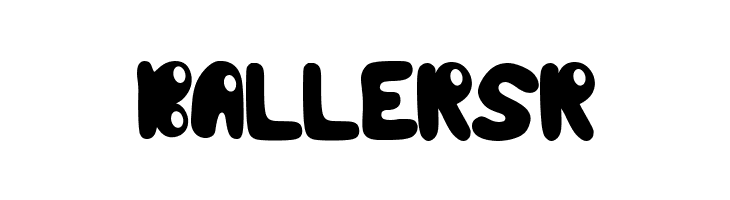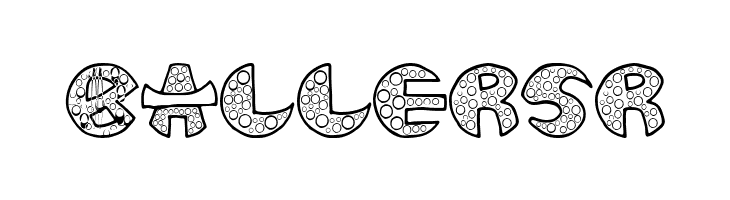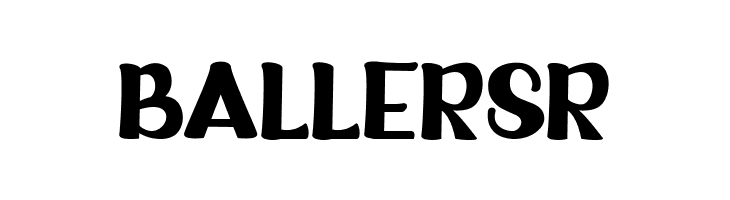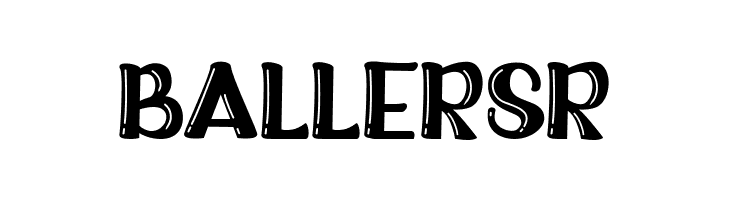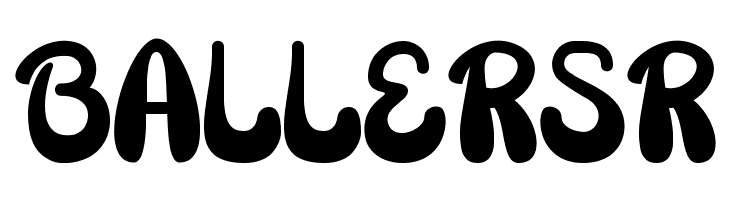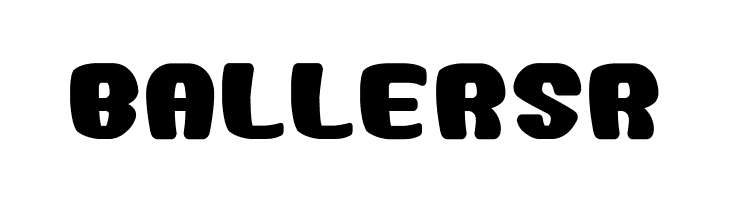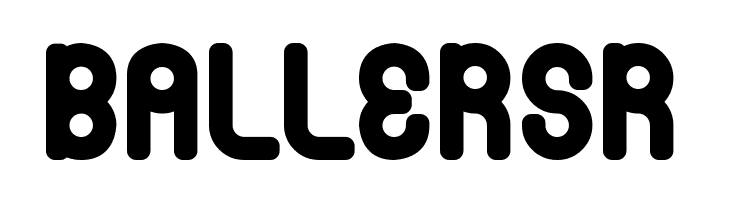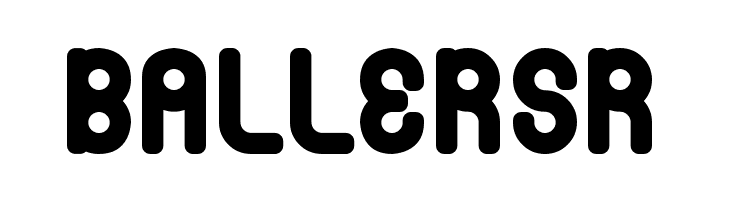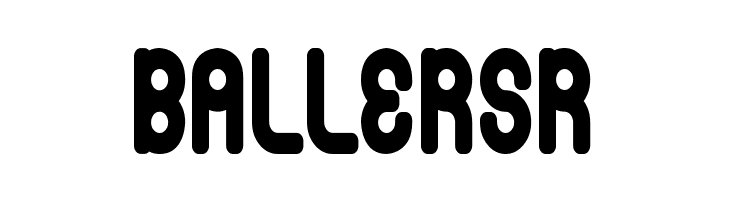
A playful, bubble-like outline font with rounded edges and a whimsical style.
A bold, playful font with rounded, bubble-like characters and quirky cutouts.
A playful, bubble-like font with rounded, bold characters.
Bold, bubbly font with snow-topped letters for festive themes.
A playful, bold font with rounded, comic-style letterforms and a three-dimensional effect.
( Fonts by Hardtype )
Playful, bubbly font with thick strokes.
( Fonts by Alit Design )
A bold, decorative font with gothic and bubble-like elements, featuring high contrast and intricate detailing.
( Fonts by Andrean Prabowo )
A bold, playful font with rounded, bubble-like characters.
( Fonts by DM Letter Studio )
Handwritten sans-serif characters inside playful circles.
( Fonts by Asep Rendi )
A bold, bubbly font with rounded, playful characters.
A bold, dynamic font with a playful, three-dimensional bubble-like style.
A bold, three-dimensional font with a playful and dynamic appearance.
( Fonts by Out of Step Font Company )
A playful, bubbly font with a hand-drawn, irregular outline style.
( Fonts by Out of Step Font Company )
A playful, 3D bubble font with a cartoonish and bold style.
( Fonts by Out of Step Font Company )
A bold, playful font with a bubbly, cartoon-like appearance.
( Fonts by Out of Step Font Company )
A playful, bold font with a unique shadow effect and rounded, bubbly characters.
( Fonts by Four Lines )
A playful, bubbly font with rounded, cartoonish characters.
( Fonts by Four Lines )
A bold, playful font with rounded, bubble-like characters.
A bold, bubbly font with a glossy, three-dimensional appearance.
( Fonts by Kong Font )
A playful, bold font with rounded, bubble-like characters perfect for creative designs.
( Fonts by Sivaporn Yutitham )
A playful, bubbly typeface with rounded characters and decorative dots.
( Fonts by Tamara Griffin )
A playful, hatched bubble font with a textured, hand-drawn appearance.
A bold, playful font with rounded, bubble-like characters.
( Fonts by DM Letter Studio )
A decorative, heart-themed monogram font with playful circular frames.
( Fonts by Ditya Ananto )
A playful, bubble-themed decorative font with intricate circular patterns.
( Fonts by The Typerex )
A playful, bold font with rounded, bubbly characters and a lively appearance.
( Fonts by The Typerex )
A playful, bold font with a bubble-like design and shadow effect.
( Fonts by Ronny Studio )
A playful, bubbly font with a bold and whimsical design.
( Fonts by DM Letter Studio )
Decorative bubble font with leaf embellishments and rounded, handwritten characters.